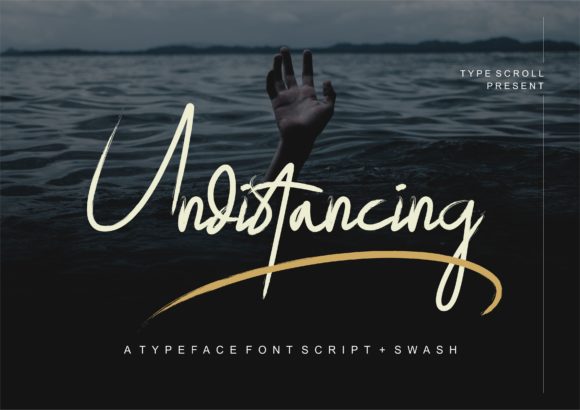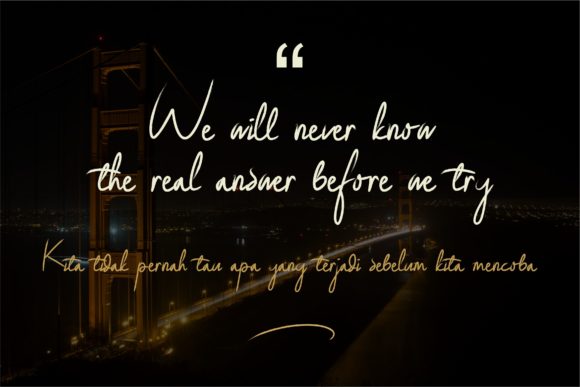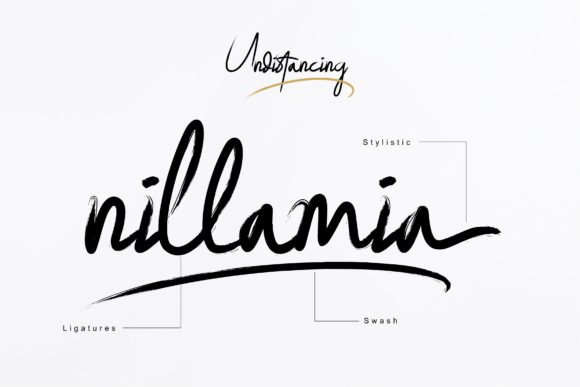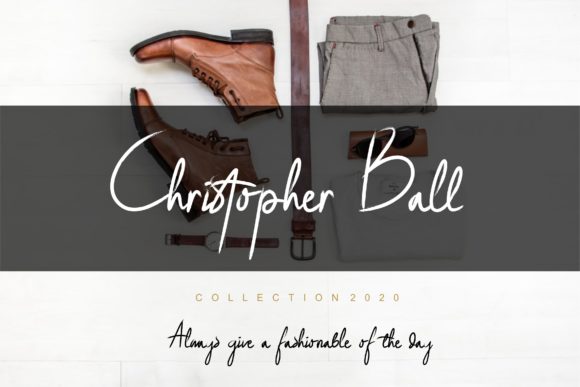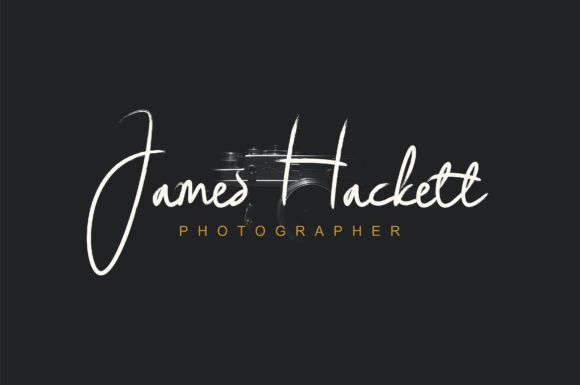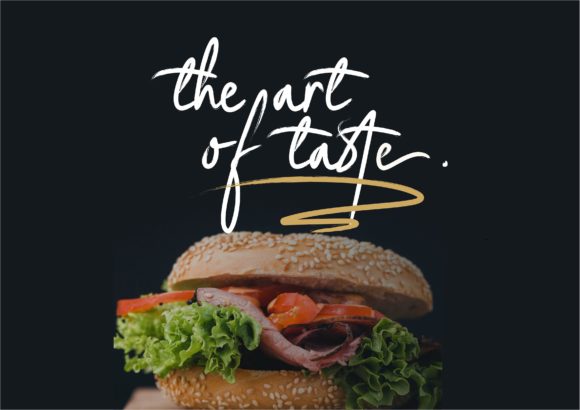
Undistancing Font
About Undistancing Font
Undistancing is an awesome brush font. It has a modern style and is perfect for branding projects, logo, wedding designs, social media posts, advertisements, product packaging, product designs, label, photography, watermark, invitation, stationery and much more!